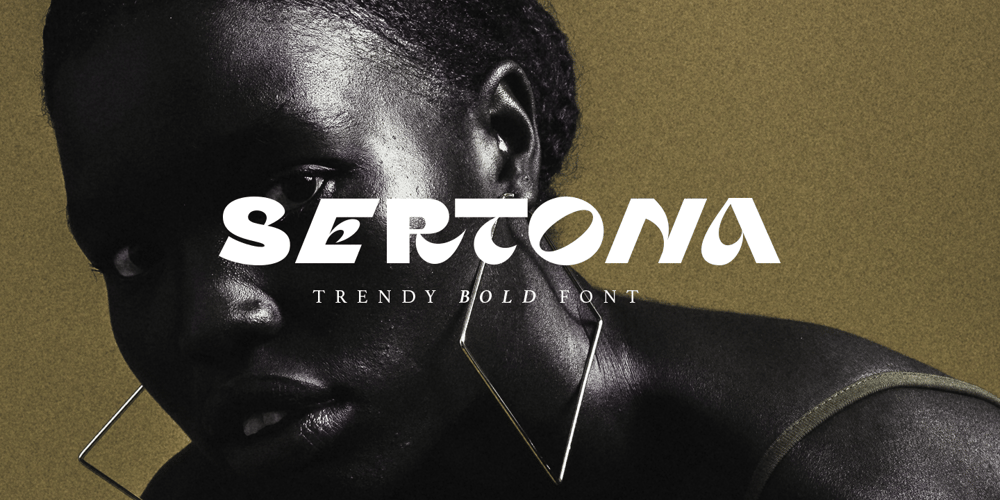
Sertona Font Family was designed by Sarid Ezra and published by Sarid Ezra. Sertona contains 1 styles and family package options. Introducing, Sertona, a trendy bold font with italic alternates!Sertona is a modern and trendy font based sans that have unique looks. This font contains uppercase and lowercase that have different form. You can use the lowercase and uppercase in the same word that will make your text more stand out! And the best of this font is the italic version as the alternates which mean you can combine it all without worrying about the kerning! You can use this font for the magazine, poster, and suitable for headline. This font also support multi language.What you will get: All Caps Font with different uppercase and lowercase Italic version as the alternates. Well Kerned.